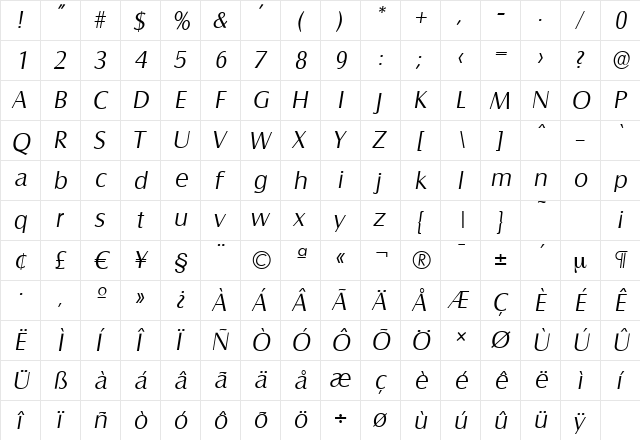
SalzburgSerial-Light Italic Font Preview
Design Context for SalzburgSerial-Light Typeface
SalzburgSerial-Light offers clean, dependable letterforms without strong stylistic allegiance, making it a practical choice for designers who need flexibility. Its italic angle brings a sense of urgency and motion to the letterforms. The delicate stroke weight brings airiness and refinement to layouts.
Pro Tip: Try SalzburgSerial-Light for annotation and caption copy alongside an upright companion — the contrast in angle creates a dynamic but ordered typographic system.